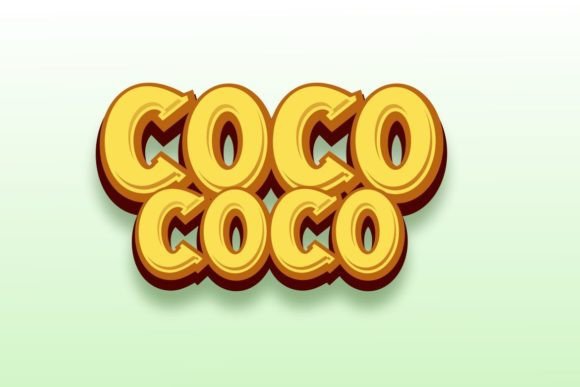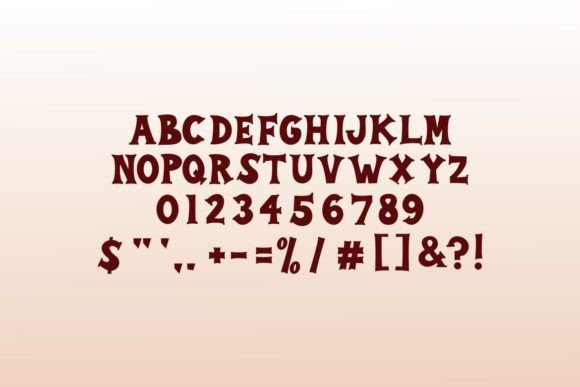
Introduction to Henika Font
Henika is a brilliant, fun, and aesthetically pleasing display font, perfect for use on cheerful topics.
Very suitable for childrenโs themed designs, especially when combined with bright colors .